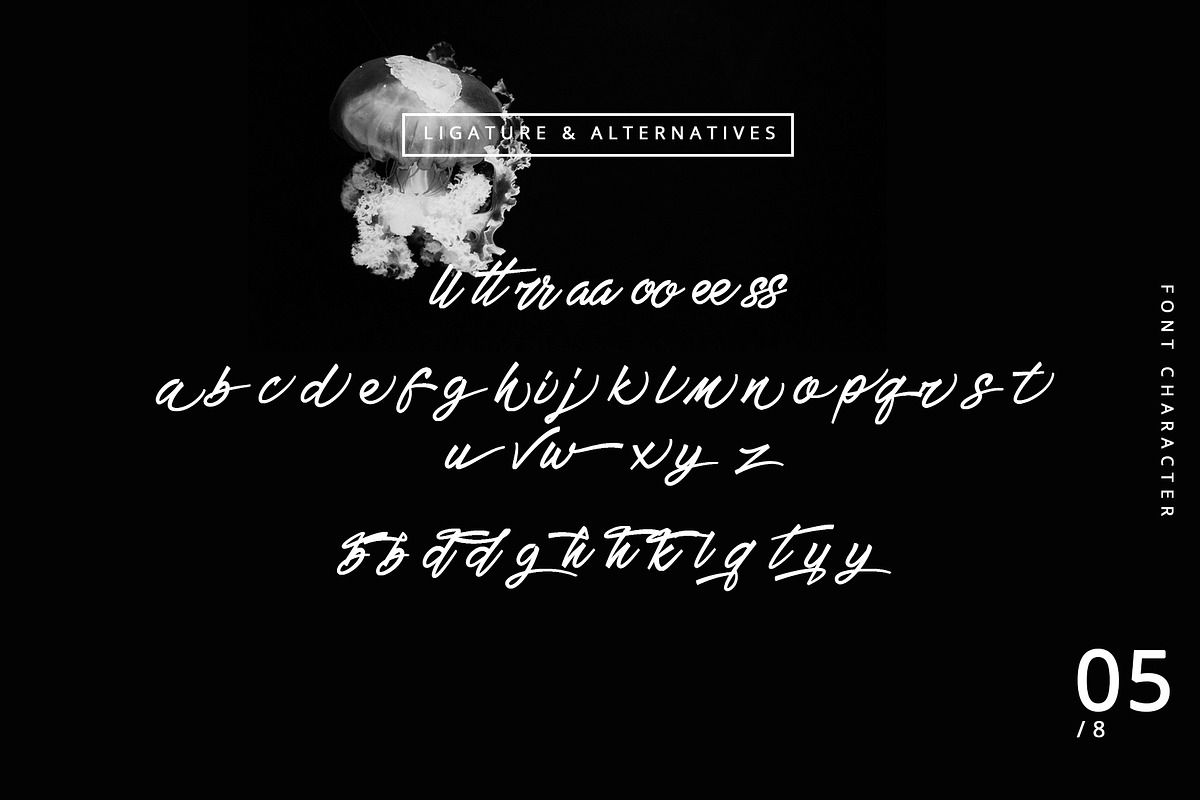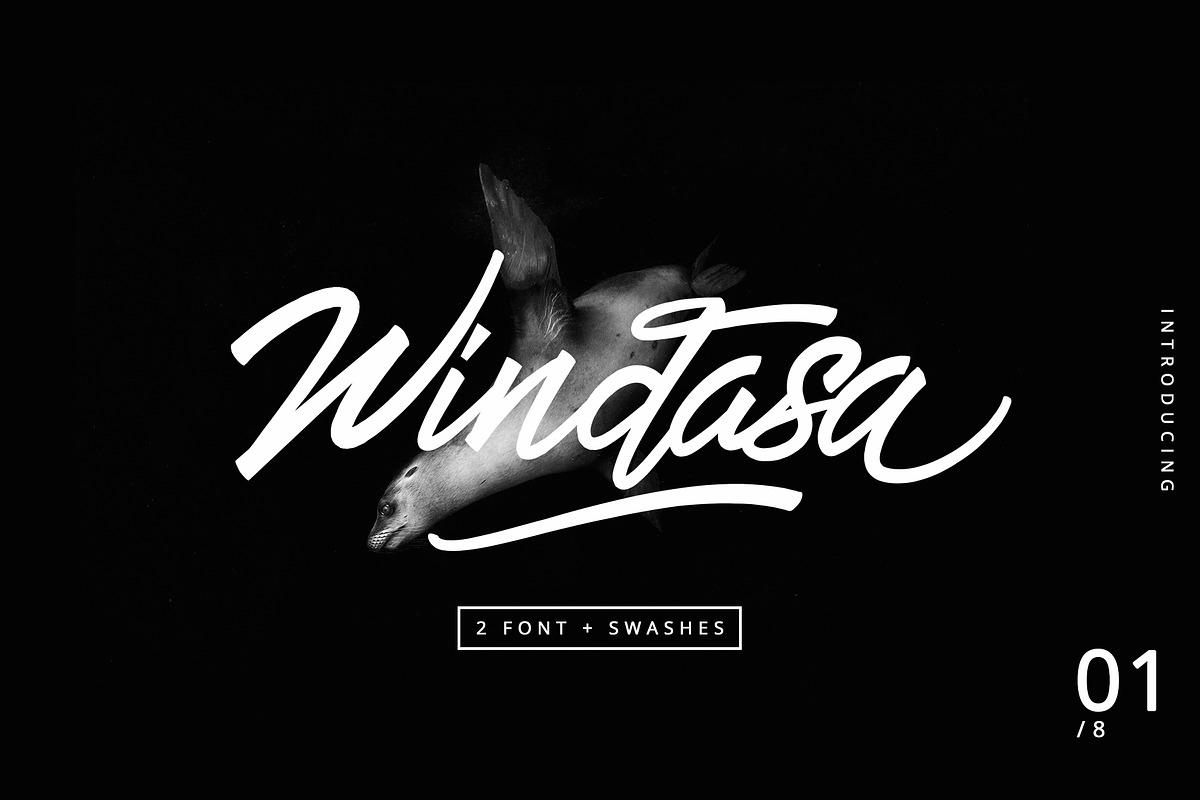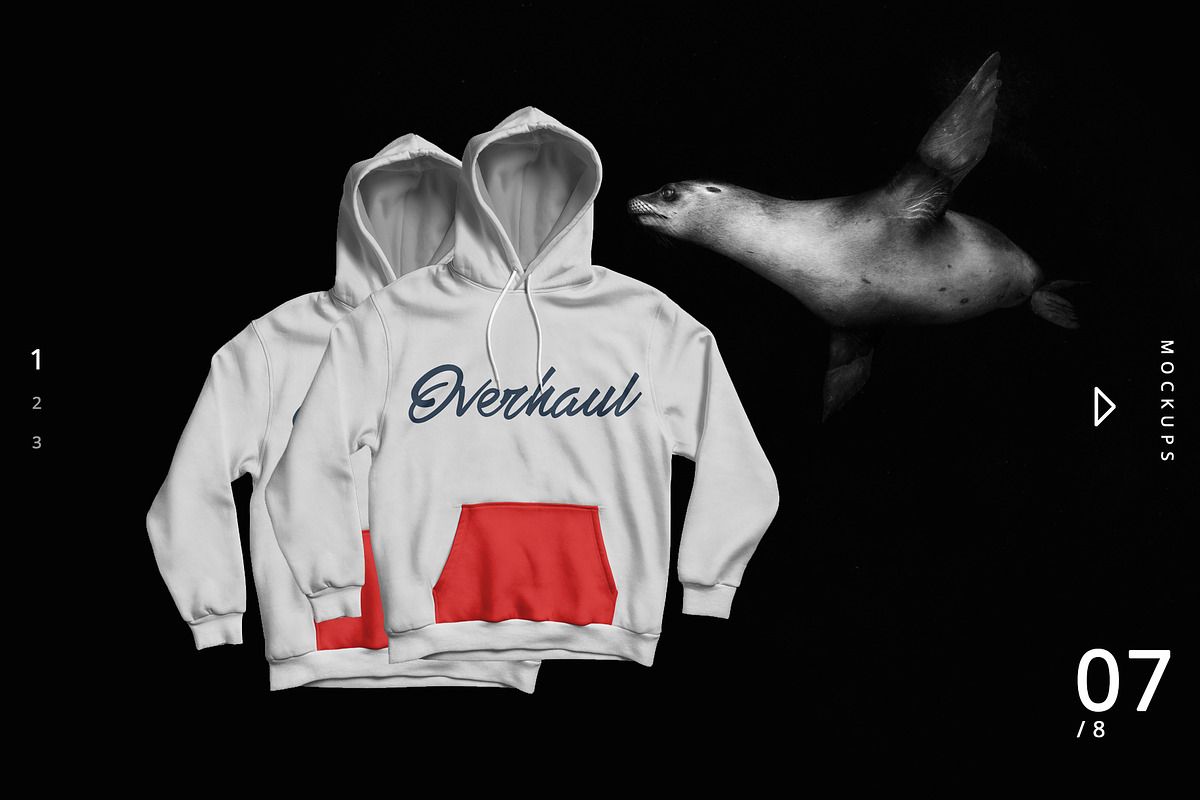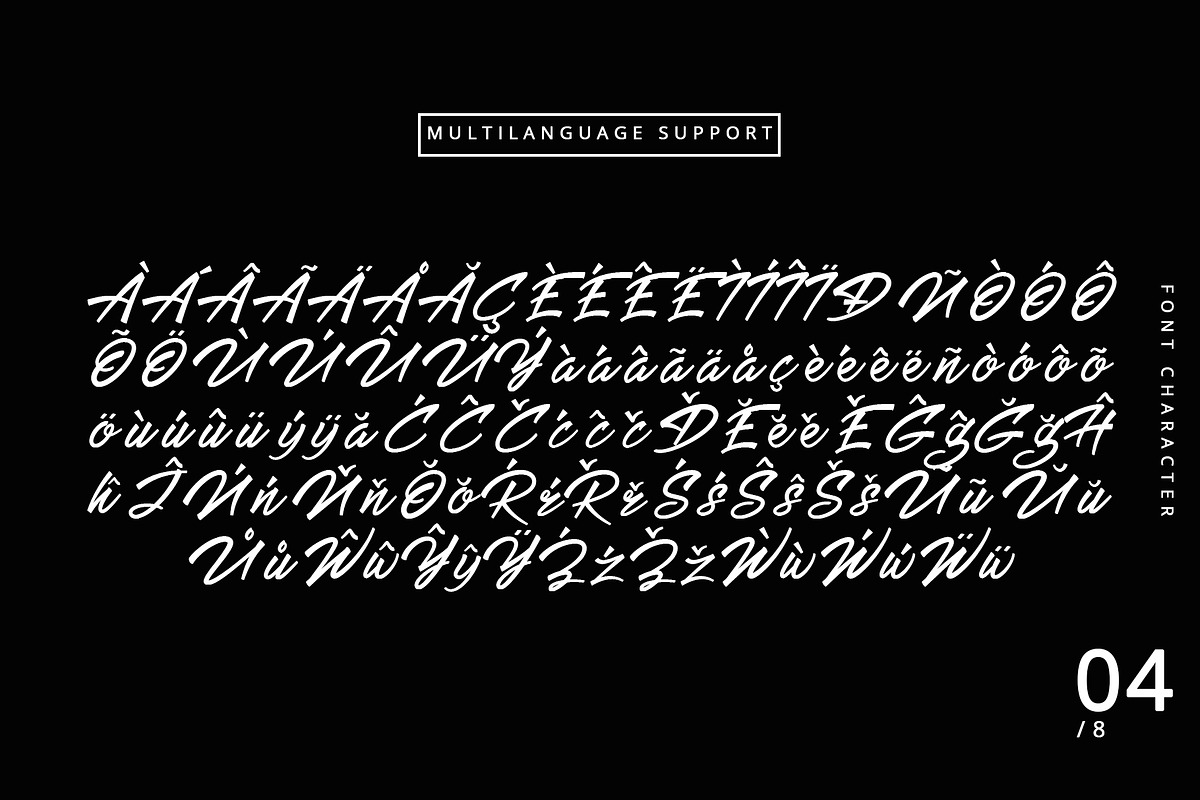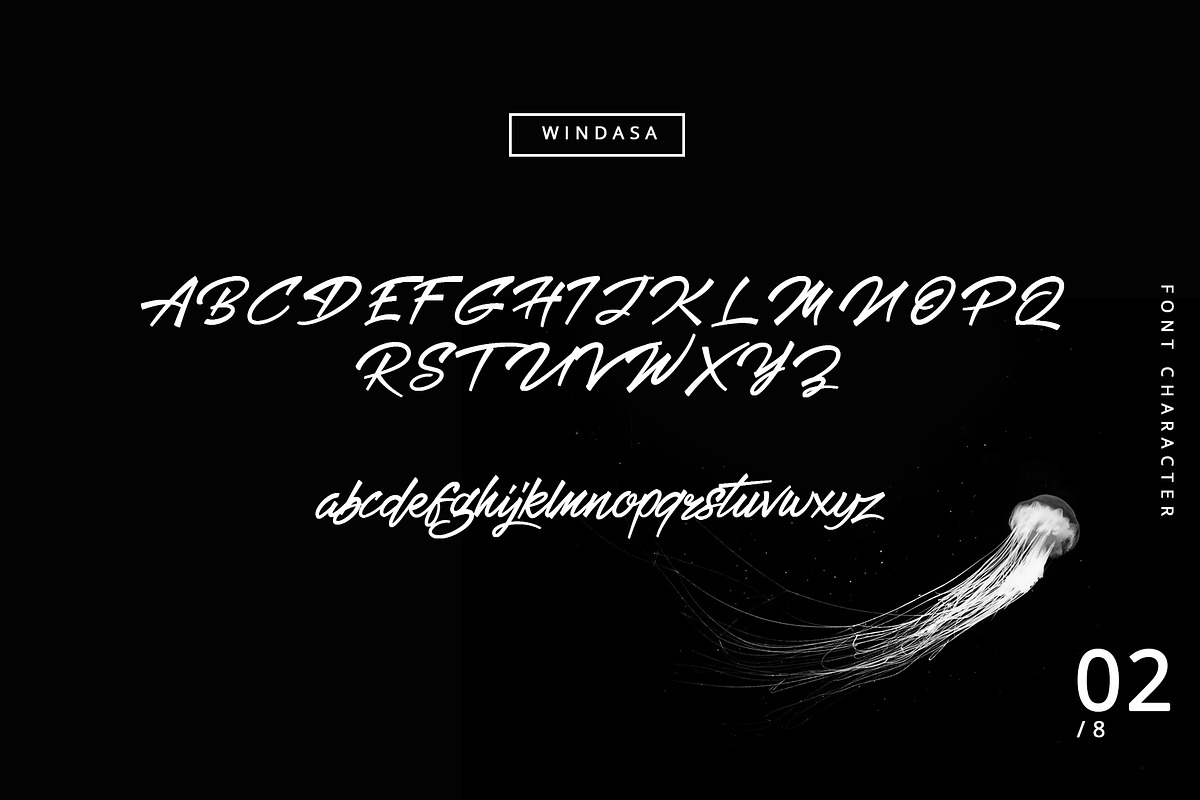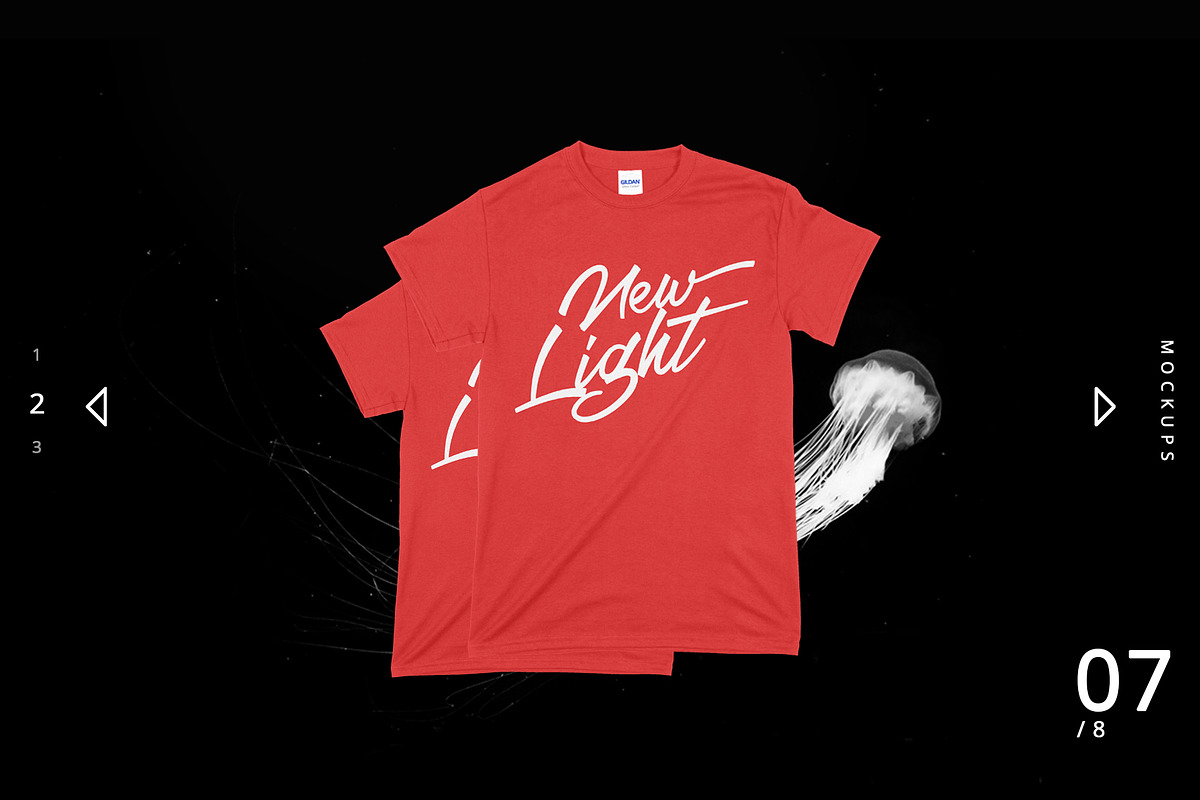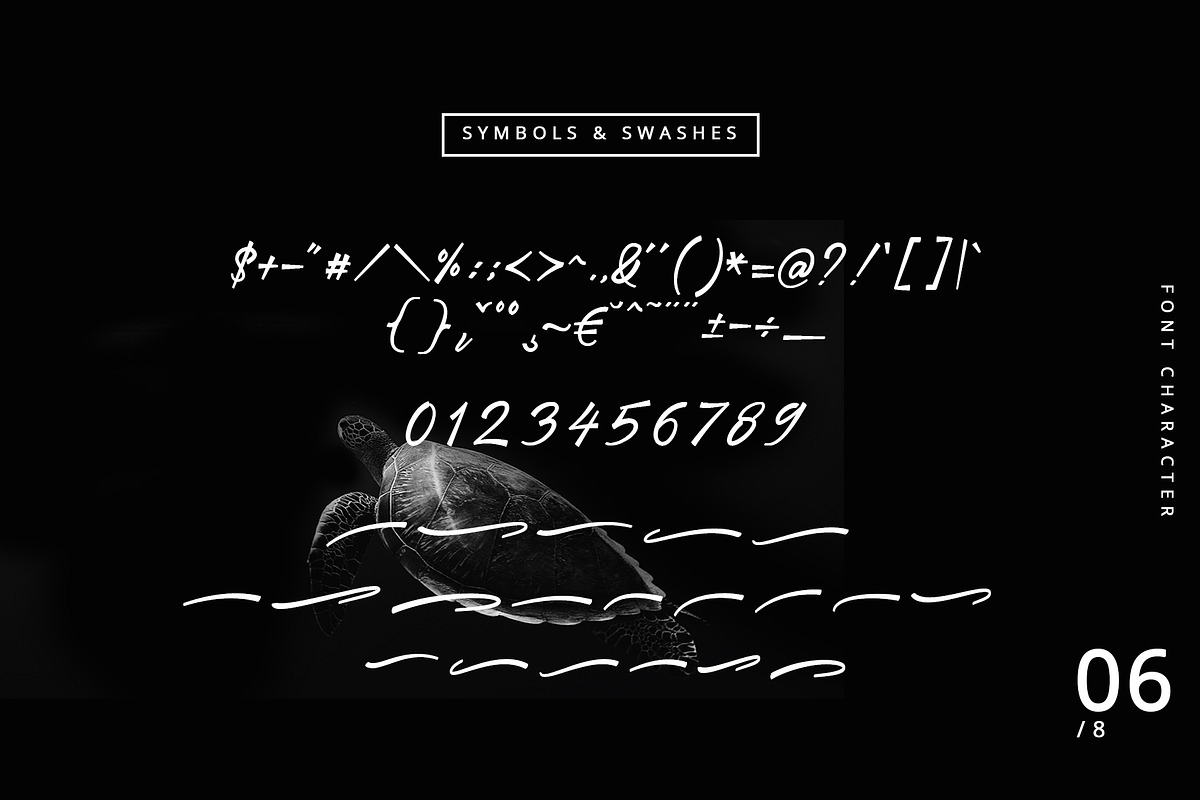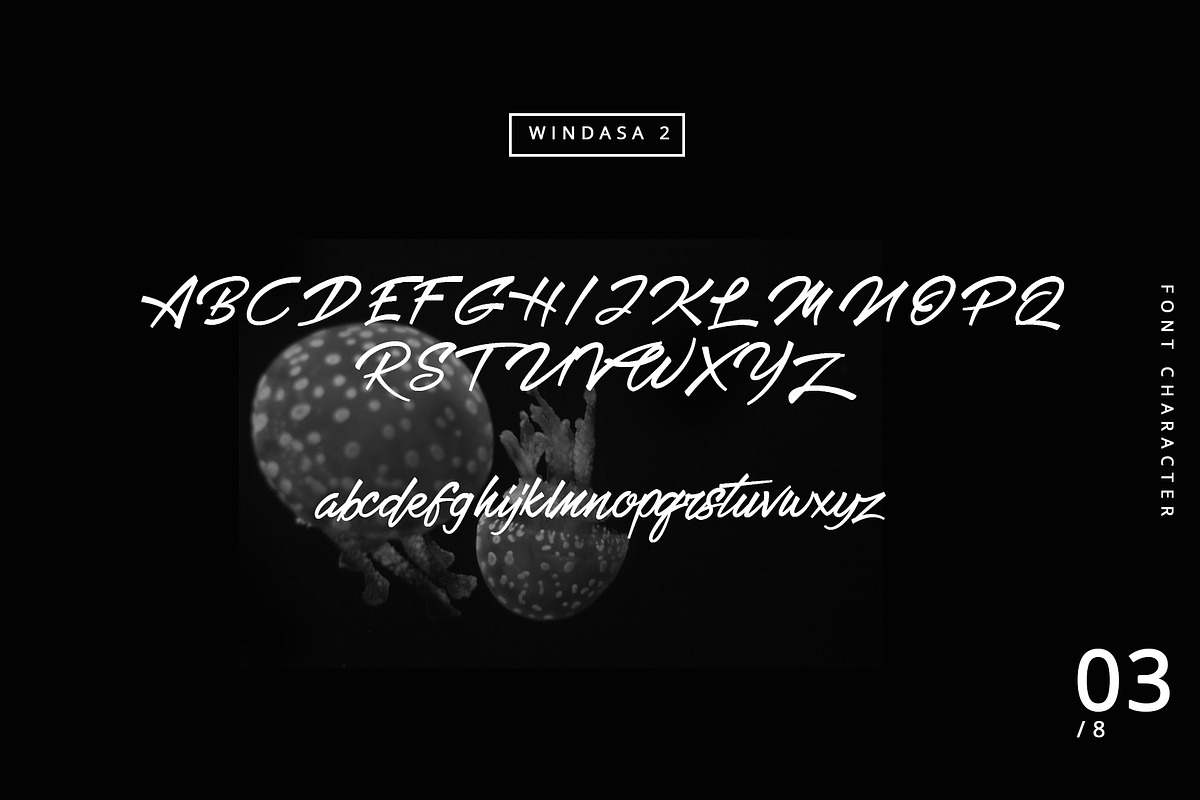
Windasa font
Windasa is a hand lettering display font , this font built with OpenType features and includes swashes, numbers, alternates, ligatures and it also supports other languages .this is a font that you can use to design clothes, banners, posters, logos, hand lettering and various other designs.
Why Windasa font is worth a look
Windasa font by Emyself Design fits naturally into Branding, posters, packaging, typography.